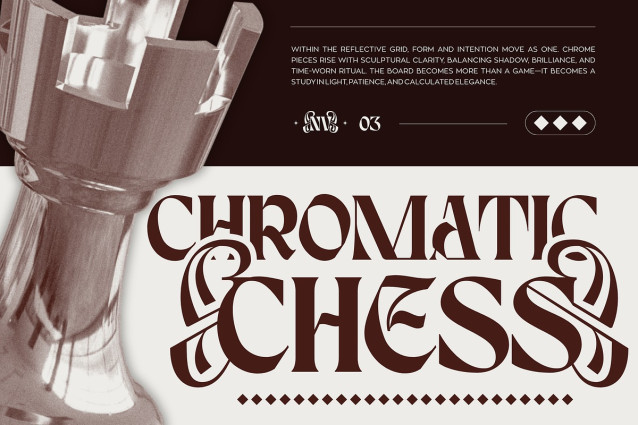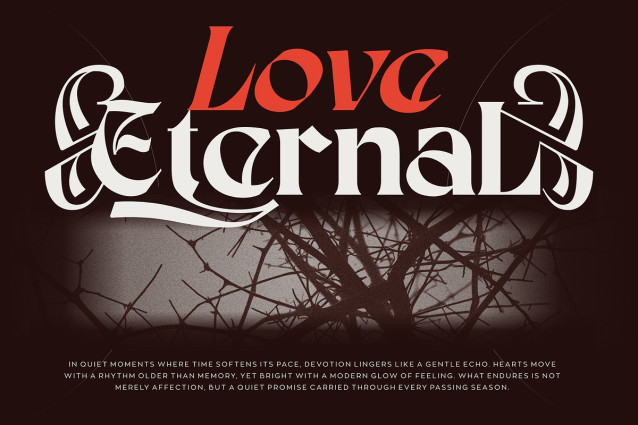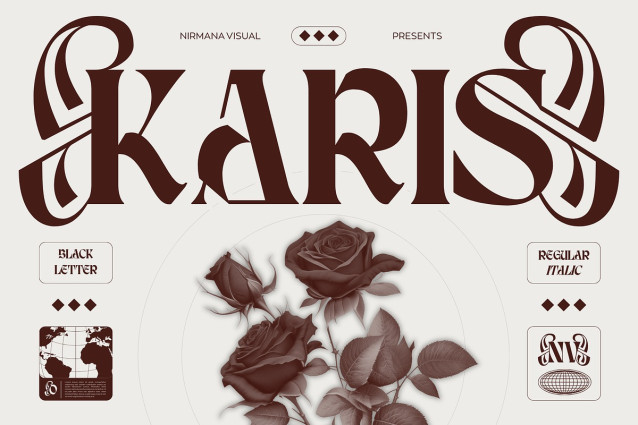
Karis Font
Karis Font is a bold, expressive typeface inspired by traditional blackletter calligraphy. Its sharp angles and dramatic strokes create a strong, historic character while maintaining modern clarity. Perfect for branding, logos, packaging, posters, and editorial design, Karis Blackletter delivers a distinctive, authoritative look that stands out with elegance and timeless style.